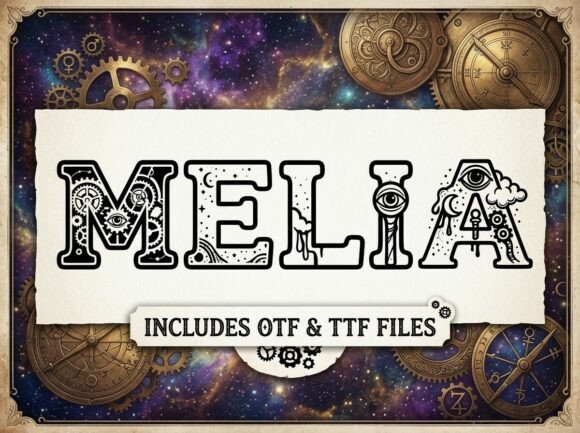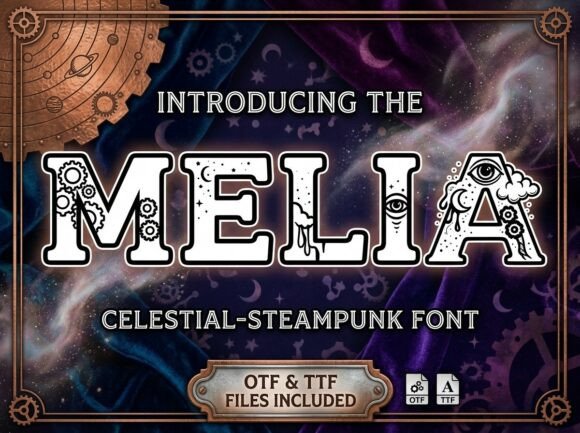
Introduction to Melia Font
Unlock a world of surrealism with Melia, an intricate display typeface that captures a “dreamlike-and-industrial” soul.
This font features bold, slab-serif letterforms filled with a rhythmic collage of hand-drawn illustrations, including gears, weeping eyes, cosmic swirls, and melting textures With its heavy illustrative weight and enigmatic personality, Melia is the premier choice for independent occult-themed branding, progressive rock album art, creative storytelling projects, and high-impact “mystical-and-mechanical” social media headers.
Key Features of Melia Font
Why Choose Melia Font?